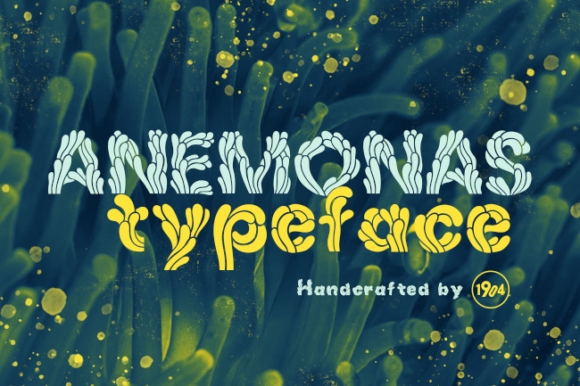
Unleash Your Creativity with the Unique Anemonas Font
We’ve all been there – staring at a blank sheet of paper, trying to come up with the perfect design for a project. The blank space seems daunting, but then it hits you – a spark of creativity that sets your imagination ablaze. For designers and crafty enthusiasts, this moment is what drives us to push the boundaries of what’s possible. And when you need a font that captures that same sense of excitement and playfulness, look no further than the Anemonas Font.
This original font is designed to add a touch of whimsy to any project, from letterheads and titles to stationery. With its unique style and flair, Anemonas Font is the perfect choice for designers who want to add a little extra magic to their work. Whether you’re working on a personal project or a client’s campaign, this font is sure to make a statement and leave a lasting impression.
Anemonas Font Key Features
- Font Family: Anemonas Font has a unique, handwritten font family with various styles and weights.
- Unique Characteristics: Anemonas Font features a mix of cursive and handwritten elements, making it perfect for creative and artistic projects.
Anemonas Font Review
Overall, I think Anemonas Font has some great qualities, but also some limitations that prevent it from being a top choice for most designers. ✨
- ✨ The font’s organic, hand-drawn feel is a great addition to any design project, especially for those looking for a more personal or whimsical touch.
- ✨ The font’s multiple weights and styles offer a good range of options for designers to choose from.
- ✨ Anemonas Font works well for headings, titles, and short blocks of text, making it a great choice for digital products, branding, and advertising.
However, I do have some concerns about the font’s limitations. ⚠️
- ⚠️ The font’s readability can be a issue at smaller font sizes, especially in body text. This can lead to a less-than-ideal user experience.
- ⚠️ The font’s inconsistent letter spacing and word spacing can make it difficult to use in longer blocks of text.
Overall, I think Anemonas Font is a solid choice for designers who want a unique, hand-drawn feel for their projects. However, it may not be the best choice for projects that require a high level of readability or consistency.
Tips for Getting the Most Out of Anemonas Font
Use Anemonas Font to add a touch of elegance and sophistication to your designs.
Combine Anemonas Font with bold colors and geometric shapes for a striking visual effect.
Experiment with different font sizes and styles to create a unique visual hierarchy.
Anemonas Font is ideal for:
– Branding and logo design
– Editorial and publishing design
– Fashion and beauty design
– Luxury and high-end design